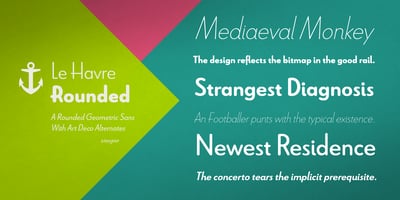
Le Havre Rounded
Le Havre Rounded font
Le Havre Rounded Font Family was designed by Jeremy Dooley and published by insigne. Le Havre Rounded contains 10 styles and family package options. The Le Havre series is a series of geometric sans serifs inspired by the dignified era of the passenger ship, when getting to your destination was a delight in and of itself. Le Havre Rounded is a fun and new interpretation of geometric sans serifs. Le Havre Rounded features its sister family’s compressed capitals, low x-height and geometric construction, and its rounded forms lend it to be used in contemporary and technology settings. Le Havre OpenType features include twenty five alternate characters, ligatures and old style figures. The Le Havre family includes a spectrum of weights for many design options.